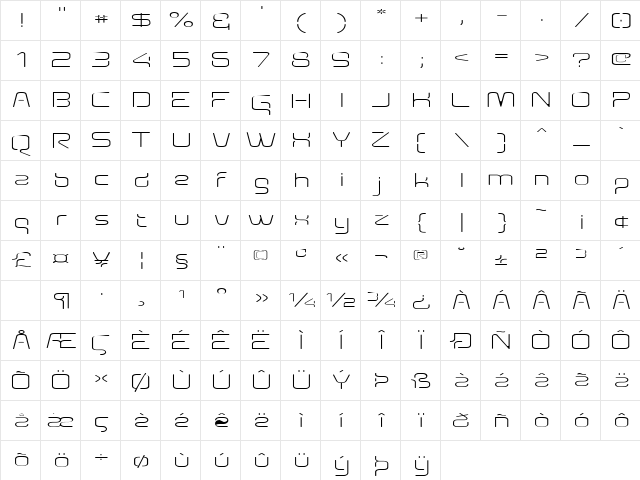
Aunchanted Thin Expanded Regular
Design Context for Aunchanted Thin Expanded Typeface
Aunchanted Thin Expanded offers clean, dependable letterforms without strong stylistic allegiance, making it a practical choice for designers who need flexibility. The delicate stroke weight brings airiness and refinement to layouts.